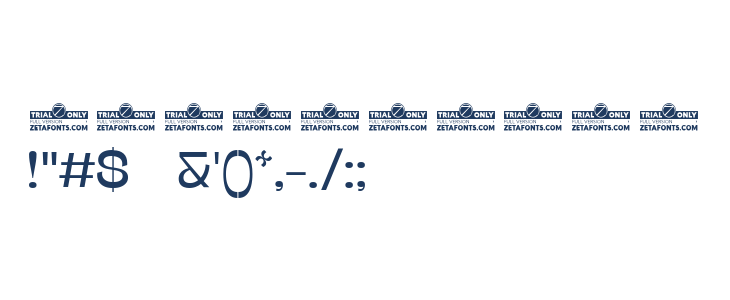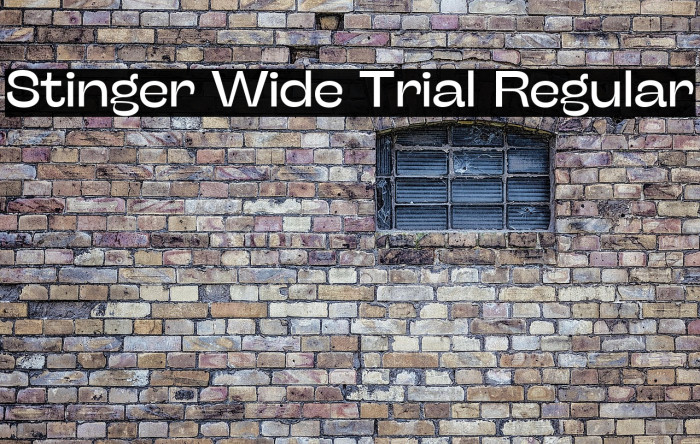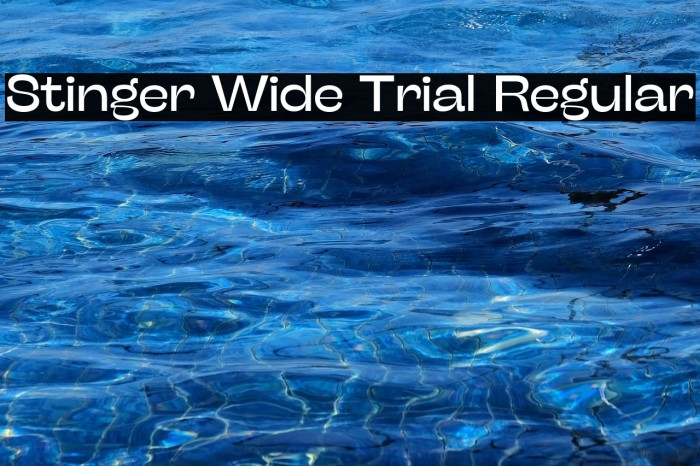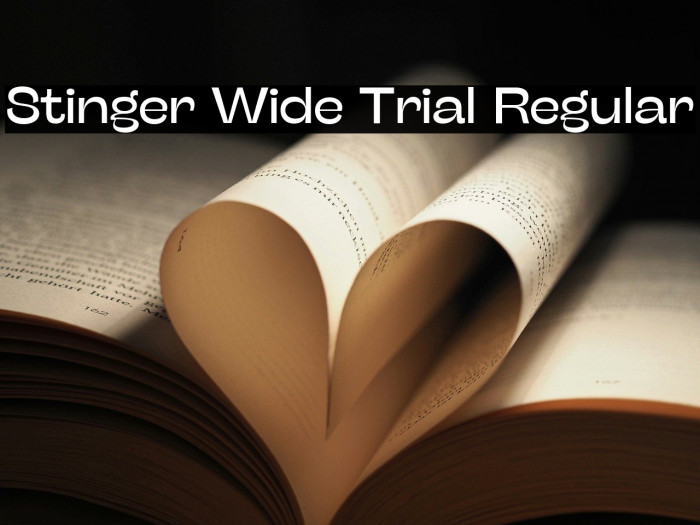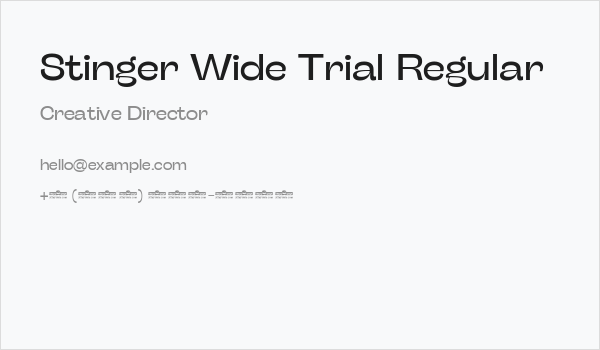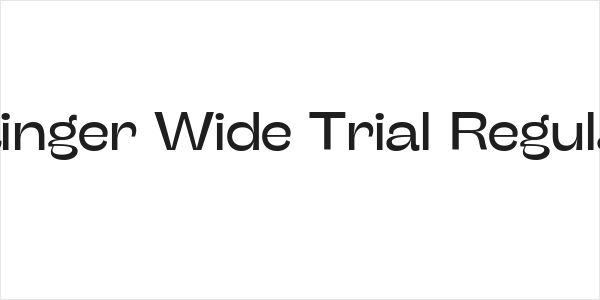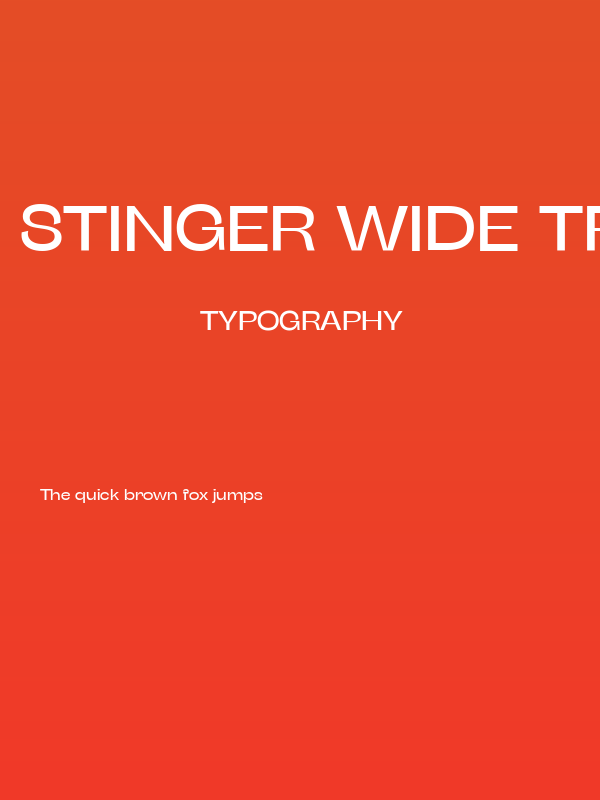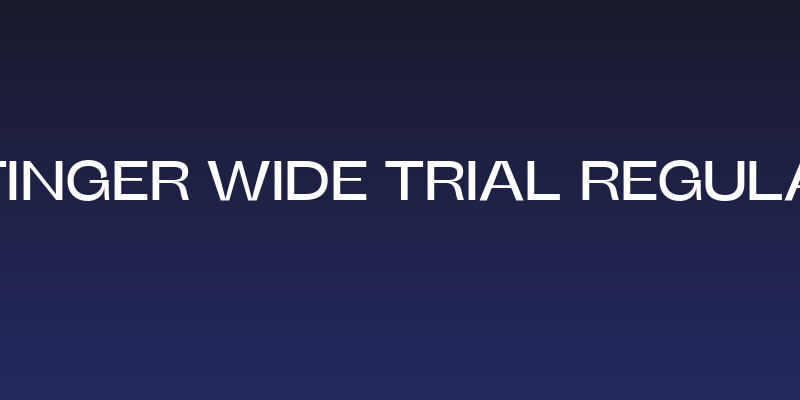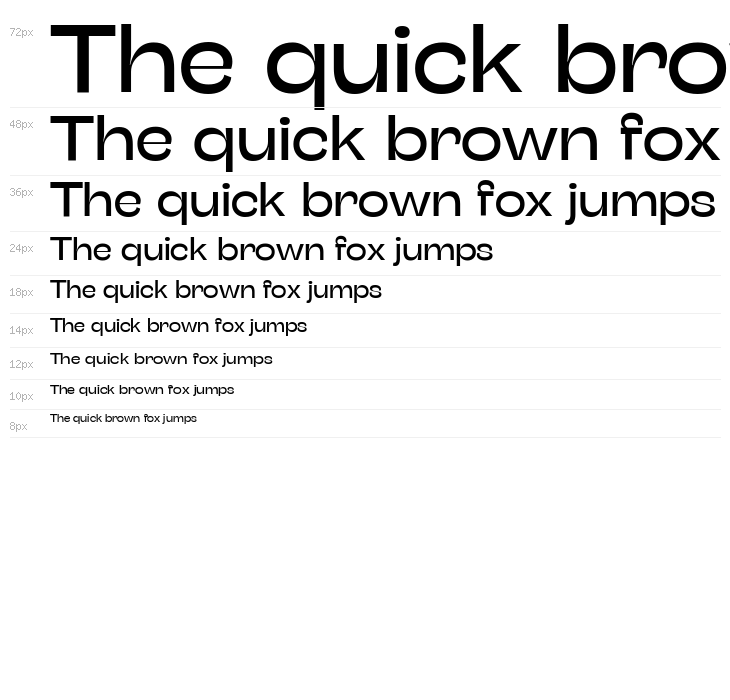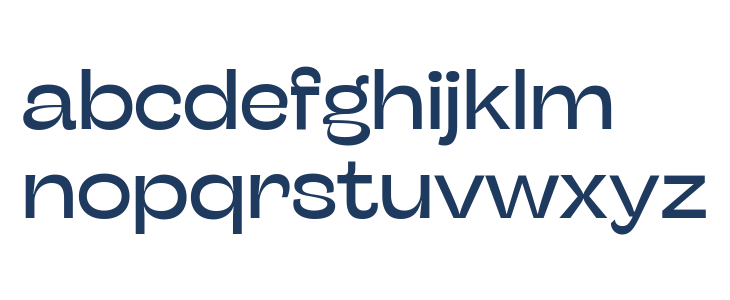
Stinger Wide Trial Regular Font
Stinger Wide Trial Regular Description
This font features a modern and clean design with wide, rounded characters that provide a sense of openness and clarity. The uppercase and lowercase letters are well-balanced, maintaining a consistent width that enhances readability. The numerals and special characters are designed to match the overall aesthetic, ensuring a cohesive look across all text elements. The font's simplicity and geometric shapes make it versatile for various design applications, from digital to print media.
| Proposed Projects | Ideal for branding, advertising, web design, and editorial projects where clarity and modernity are essential. |